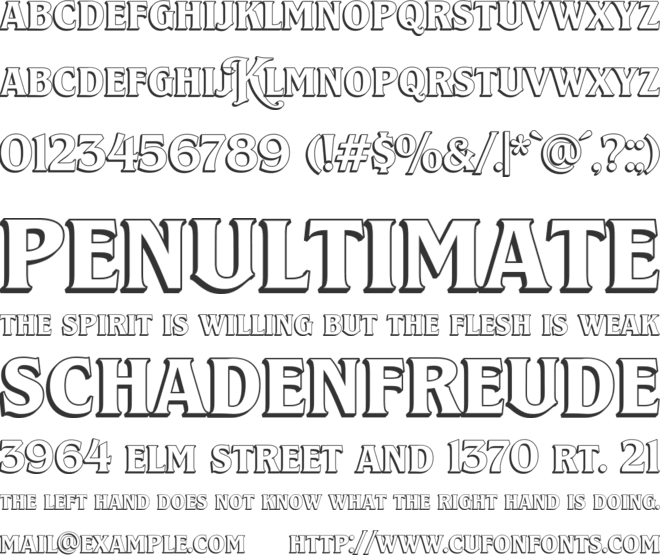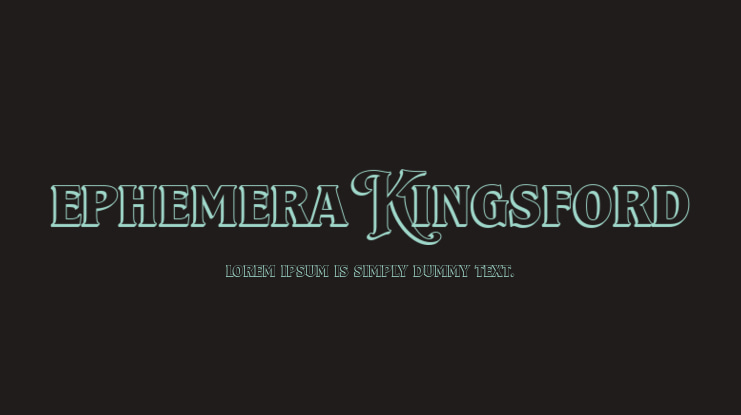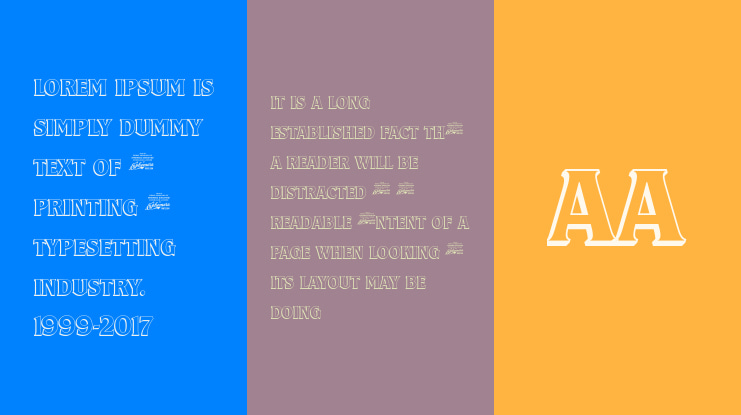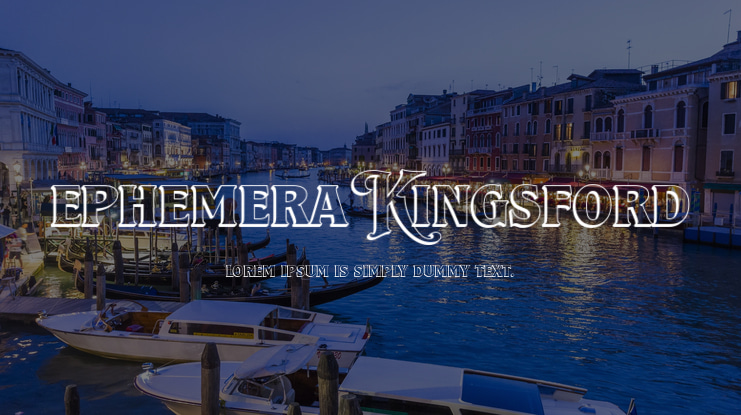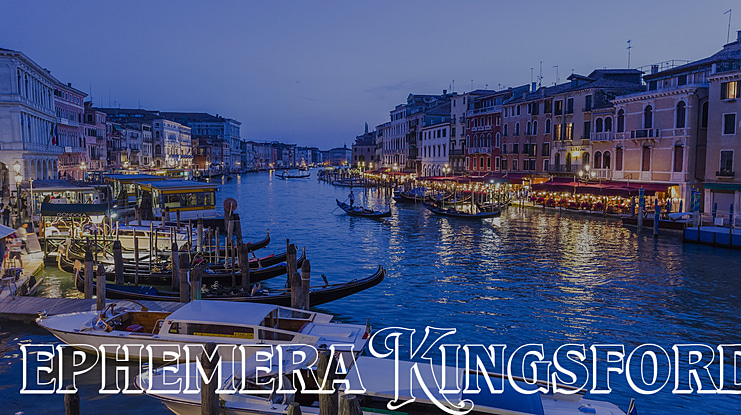
Ephemera Kingsford Font
This is DEMO Version of Ephemera Kingsford. You will see the ephemera logo when typing "the" "and" "logo" "by" "from" "co" when the ligature feature is active. this happens only in the Demo version. That won't happen in the commercial version,
Ephemera Kingsford packed up with 9 layered fonts, 1 font as a pair, and of course ornaments and vintage panels as a vector file.Perfectly fit for display printing, handcrafted product, screen printing industry such as apparel, packaging, labels, and also sign painting, scrapbook, glass gilding, et cetera.